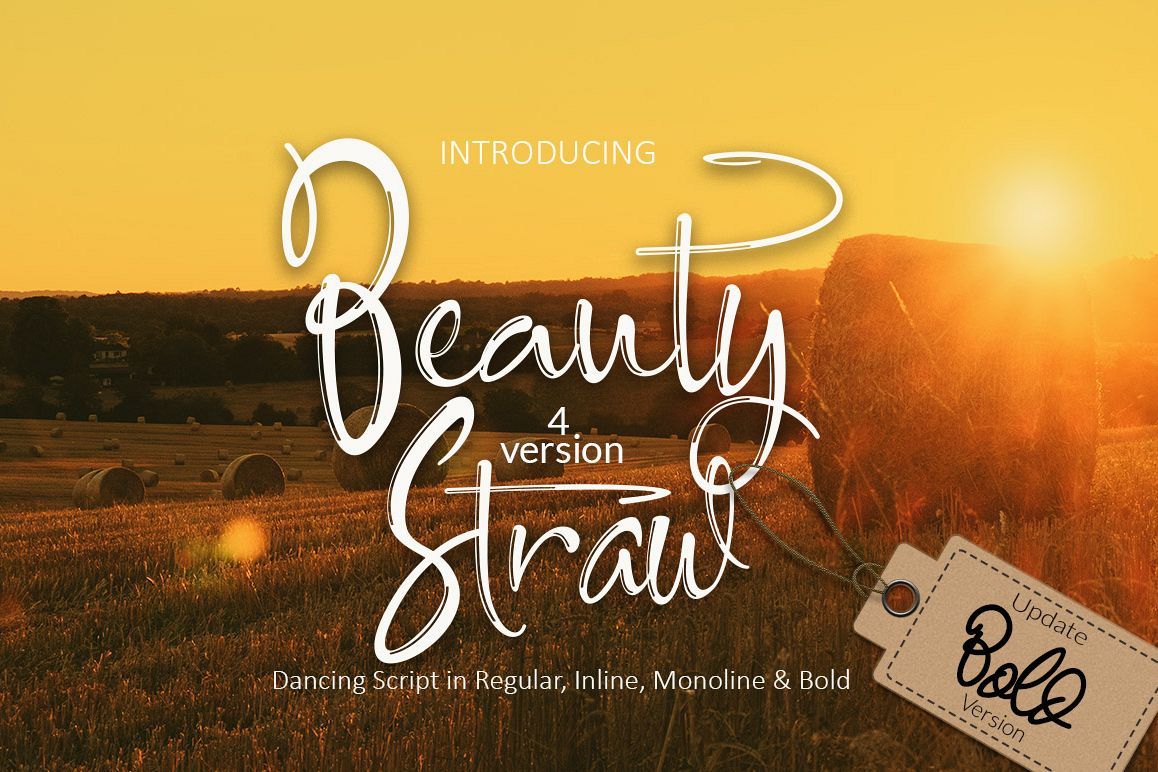
Beauty Straw + Bold Version
Beauty Straw is Handmade Font Created by regular pen. it is specially character of my normal font, and usually I used this font for writing on the books. of Course, I'm very happy created this font for you all :-) :-)Beauty Straw is come with 4 Styles (Regular, Inline, Monoline and Bold) Styles.
Beauty Straw very suitable for anything your design product, like as Logos, Wedding, Business Cards, Magazine, Gift Cards, Cloth, T-Shirt, Menu of Cafe and Restaurant, Brands, CD and DVD Cover, Wall, Frame, and typing in your PC. I thing... This Font you can use and Apply for anything you want.
Opentype Feature:
• Standard Typeface
• Uppercase and Lowercase
• Uppercase Alternate Character in ss01
• Lowercase Alternate Character in ss01 and ss02
• Alternate Ligature
• Punctuation, Symbols, Basic Latin and Extended